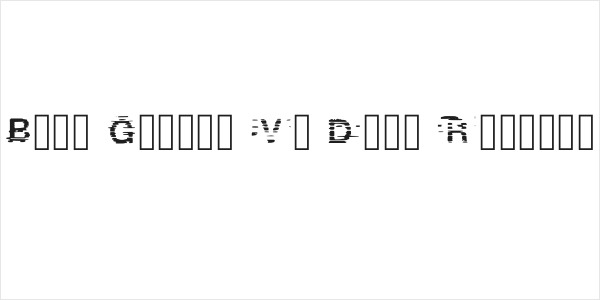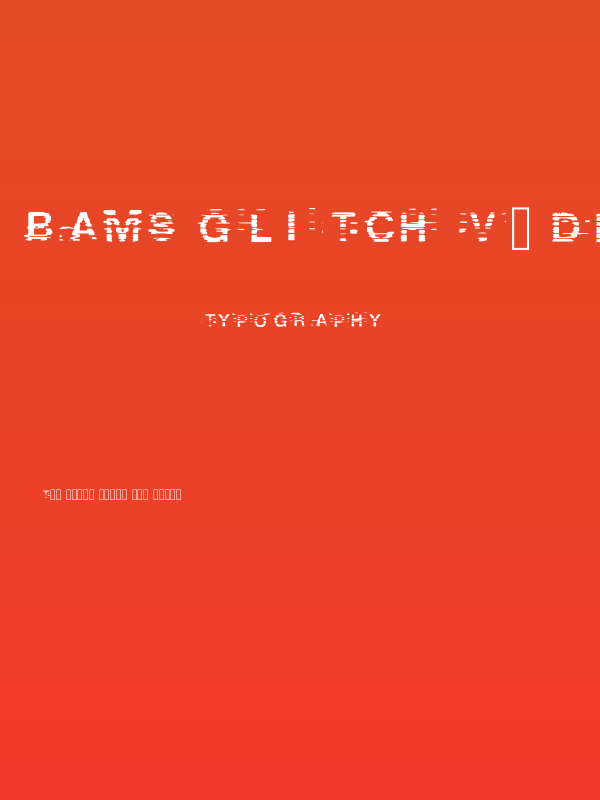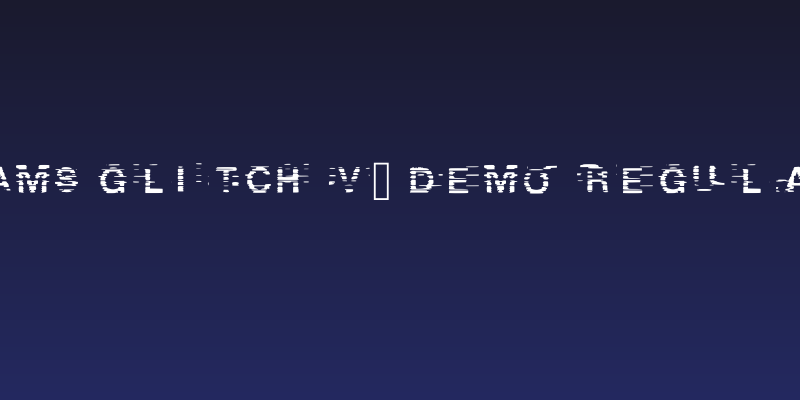
Bams Glitch V2 Demo Regular Font
Bams Glitch V2 Demo Regular Description
This font features a unique glitch effect that gives it a digital, distorted appearance. The uppercase letters are designed with a fragmented style, creating a sense of movement and disruption. This effect is consistent across all characters, making it ideal for projects that require a modern, tech-inspired aesthetic. The font's style is reminiscent of digital errors or corrupted data, which can add a dynamic and edgy feel to any design. The characters are bold and have a medium contrast, with a normal width and tight character spacing. This font is particularly suitable for creative and experimental designs, where a futuristic or avant-garde look is desired.
| Proposed Projects | Perfect for tech-themed posters, digital art, video game graphics, and edgy branding projects. |